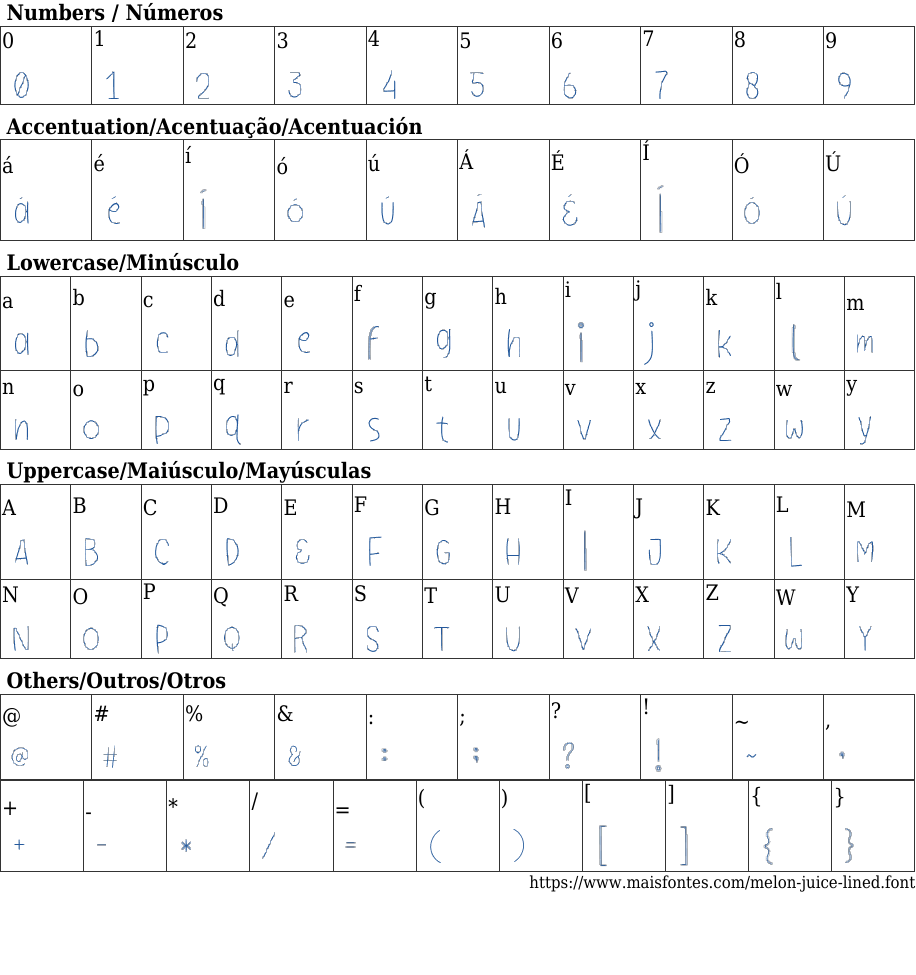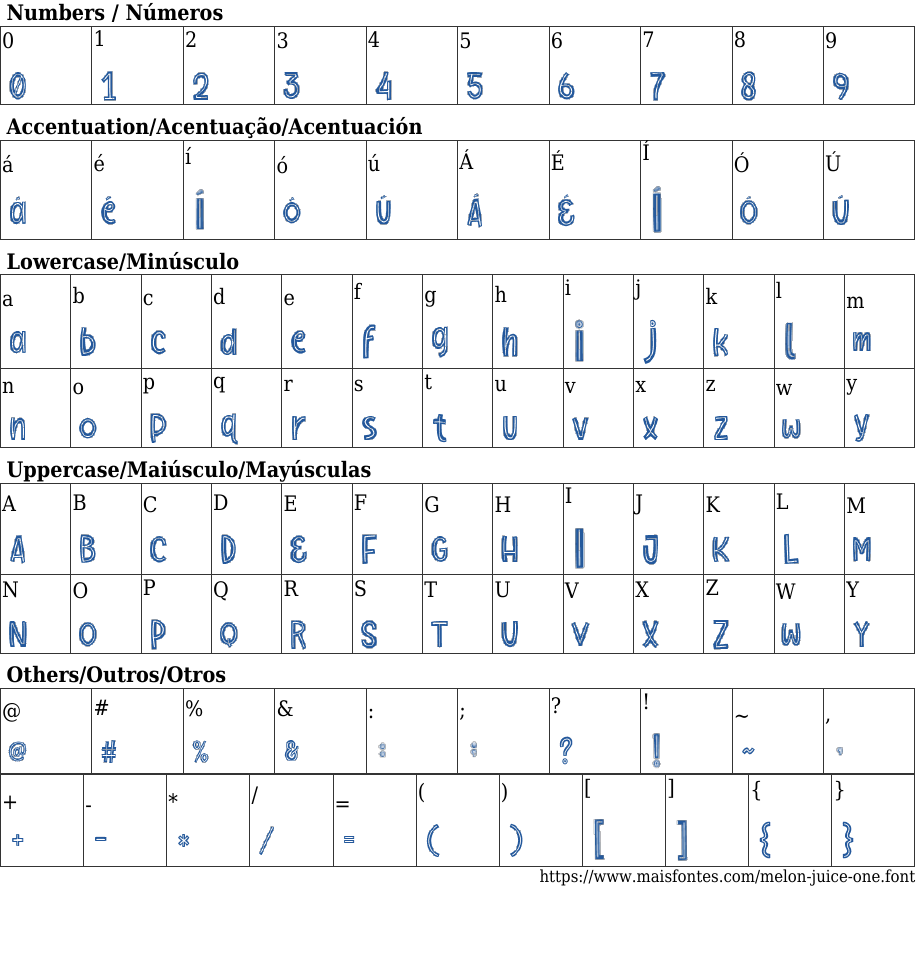
Melon Juice Font . It will add a unique touch to any crafting project. melon juice is a playful and stylish font with a youthful spirit. Trusted by millions + easy to use font files + full. Melon juice is a beautiful display font with a fresh stylish appeal. about the font melon juice two. Download 10,000 fonts for just $19.95. Be aware that the melon juice two font is free for personal knowledge and use only. download, preview & design with melon juice font using our powerful text font generator for free, or purchase the full version with a. Logos, branding projects, homeware designs,. melon juice is a beautiful display font with a fresh stylish appeal. It will add a unique touch to any crafting project. melon juice font is a quirky font, suitable for any projects such as:
Download 10,000 fonts for just $19.95. It will add a unique touch to any crafting project. about the font melon juice two. Melon juice is a beautiful display font with a fresh stylish appeal. melon juice font. melon juice font is a quirky font, suitable for any projects such as: melon juice is a beautiful display font with a fresh stylish appeal. It will add a unique touch to any crafting project. melon juice is a playful and stylish font with a youthful spirit. download, preview & design with melon juice font using our powerful text font generator for free, or purchase the full version with a.
Melon Juice Font melon juice font. It will add a unique touch to any crafting project. melon juice font is a quirky font, suitable for any projects such as: melon juice font. download, preview & design with melon juice font using our powerful text font generator for free, or purchase the full version with a. melon juice is a playful and stylish font with a youthful spirit. melon juice is a beautiful display font with a fresh stylish appeal. about the font melon juice two. Melon juice is a beautiful display font with a fresh stylish appeal. Download 10,000 fonts for just $19.95. Trusted by millions + easy to use font files + full. Logos, branding projects, homeware designs,. Be aware that the melon juice two font is free for personal knowledge and use only.
Melon Juice Font by goodjavastudio · Creative Fabrica Melon Juice Font melon juice font. Logos, branding projects, homeware designs,. melon juice font is a quirky font, suitable for any projects such as: about the font melon juice two. It will add a unique touch to any crafting project. Be aware that the melon juice two font is free for personal knowledge and use only. melon juice is. Melon Juice Font.
Melon Juice Freshty Font Melon Juice Font It will add a unique touch to any crafting project. Melon juice is a beautiful display font with a fresh stylish appeal. about the font melon juice two. Logos, branding projects, homeware designs,. Be aware that the melon juice two font is free for personal knowledge and use only. download, preview & design with melon juice font using. Melon Juice Font.
Vector Watermelon Font On White Background Stock Vector (Royalty Free Melon Juice Font Download 10,000 fonts for just $19.95. It will add a unique touch to any crafting project. download, preview & design with melon juice font using our powerful text font generator for free, or purchase the full version with a. melon juice font is a quirky font, suitable for any projects such as: Be aware that the melon juice. Melon Juice Font.
Fashion popular watermelon juice drink poster PSD Free Download Pikbest Melon Juice Font It will add a unique touch to any crafting project. download, preview & design with melon juice font using our powerful text font generator for free, or purchase the full version with a. Trusted by millions + easy to use font files + full. It will add a unique touch to any crafting project. Logos, branding projects, homeware designs,.. Melon Juice Font.
Melon Juice, Fonts GraphicRiver Melon Juice Font melon juice is a beautiful display font with a fresh stylish appeal. Logos, branding projects, homeware designs,. It will add a unique touch to any crafting project. download, preview & design with melon juice font using our powerful text font generator for free, or purchase the full version with a. Download 10,000 fonts for just $19.95. about. Melon Juice Font.